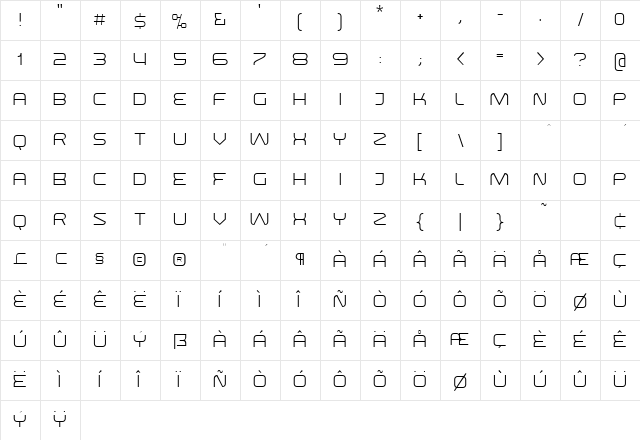
SwiszThin Regular Font Preview
SwiszThin Regular
SwiszThin Regular Font Details
Design Context for SwiszThin Typeface
SwiszThin takes a measured approach to typography — its balanced proportions and neutral character make it a reliable workhorse for both digital and print work. Its slender proportions lend an understated elegance to any composition.